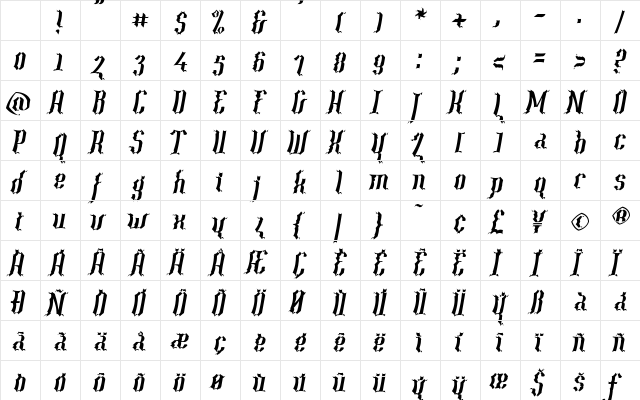
Complete Year2000 Context Scrambled Regular glyph index. Displaying only characters natively supported by Year2000 Context Scrambled Regular font.
Year2000 Context Scrambled is a composed and adaptable typeface that performs quietly and consistently across a wide range of design contexts.